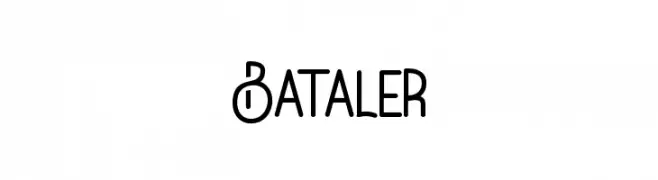
( BitmapMania - bitmapmania.m78.com/ )
A pixelated, decorative font with characters enclosed in a gear-like border, evoking a retro digital feel.
( Bronte Marie - brontemarie.com )
A bold, geometric font with clean lines and a modern aesthetic.
( BitmapMania - bitmapmania.m78.com/ )
A bold, geometric font with uniform strokes and a modern, digital aesthetic.
( Bronte Marie - brontemarie.com )
A playful, bold font with rounded, bubble-like characters and a retro sci-fi vibe.
( BitmapMania - bitmapmania.m78.com/ )
A bold, geometric font with a maze-like, futuristic design.
( BitmapMania - bitmapmania.m78.com/ )
A bold, pixelated font with a retro digital style.
( BitmapMania - bitmapmania.m78.com/ )
A bold, pixelated font with a retro digital aesthetic.
( BitmapMania - bitmapmania.m78.com/ )
A pixelated, retro-style font with a bold, geometric design.
A playful, hand-drawn style font with irregular strokes and a casual feel.
A pixelated, retro-style font with a blocky, geometric design.
( Font by Ben Nathan - www.hafontia.com )
A modern, geometric font with a futuristic and sleek design.
( Fonts by Ben Nathan )
A futuristic, geometric font with rounded edges and uniform thickness.
( Fonts by Ben Nathan )
A bold, distressed font with a rough, textured appearance ideal for grunge or horror themes.
( Fonts by Ben Nathan )
A modern, playful font with bold uppercase and rounded lowercase letters.
( Font by Ben Nathan - www.hafontia.com )
A futuristic, geometric font with bold, rounded letterforms and tight spacing.
( Banphot Nuchleang - bond.in.th/ )
A pixelated, monospaced font with a retro digital aesthetic.
( Banphot Nuchleang - bond.in.th/ )
A bold, pixelated font with a retro digital aesthetic.
( Font by Ben Nathan - www.hafontia.com )
A modern, geometric font with clean lines and rounded corners.
( Fonts by Ben Nathan )
A geometric, grid-like font with a mechanical and futuristic design.
( Fonts by Ben Nathan )
A modern, geometric font with clean lines and a minimalist style.
( Font by Ben Nathan - www.hafontia.com )
A bold, modern font with geometric, angular characters and a dynamic slant.
( Font by Ben Nathan - www.hafontia.com )
A bold, pixelated font with a retro digital aesthetic.